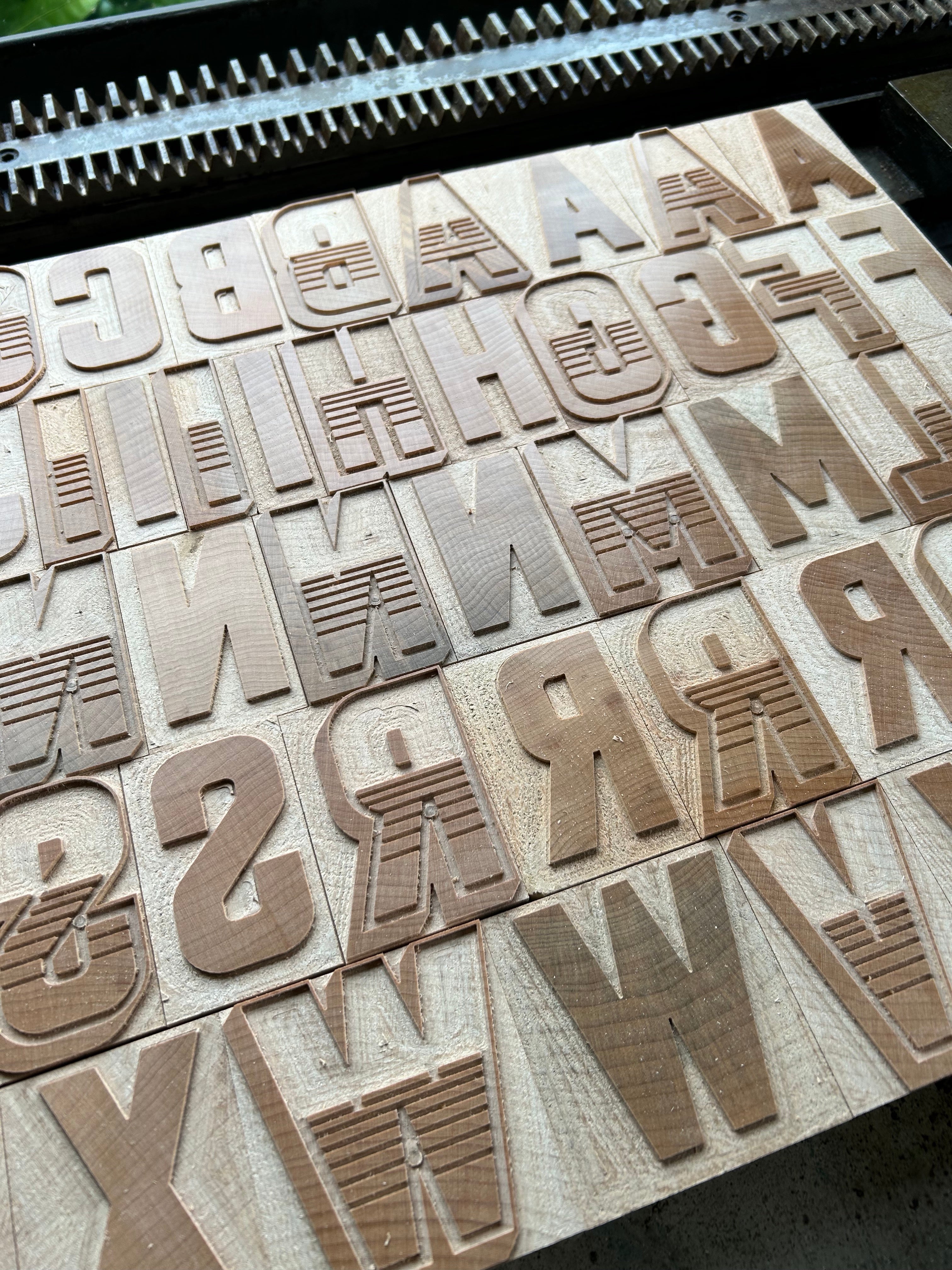
'Stewartby Chromatic' letterpress woodtype typeface
Introducing 'Stewartby Chromatic - a true chromatic ornamented drop shadow typeface, designed by Mark McKellier.
16 line (67.7mm) version cut from end grain English hardwood using a combination of modern CNC technology and traditional hand woodworking tools (including an original printers saw), made to English type-high (0.918in or 23.3mm) within plus or minus 0.1mm tolerance, sealed with shellac and hand finished with a traditional polished printing surface.
End grain English Hardwood, clear shellac
Each block varies in width however average size is 48 x 23.3 x 67.7mm